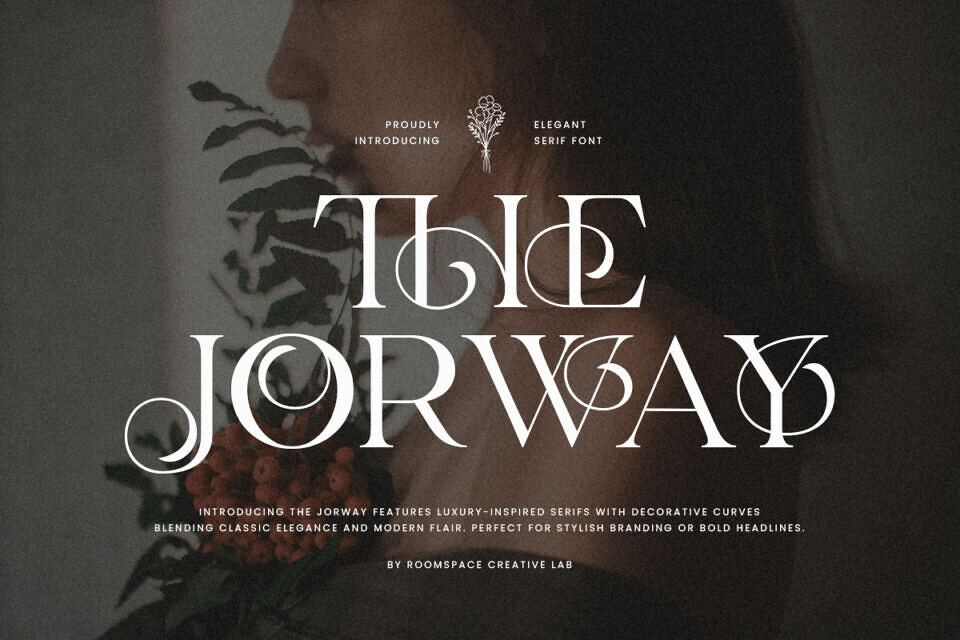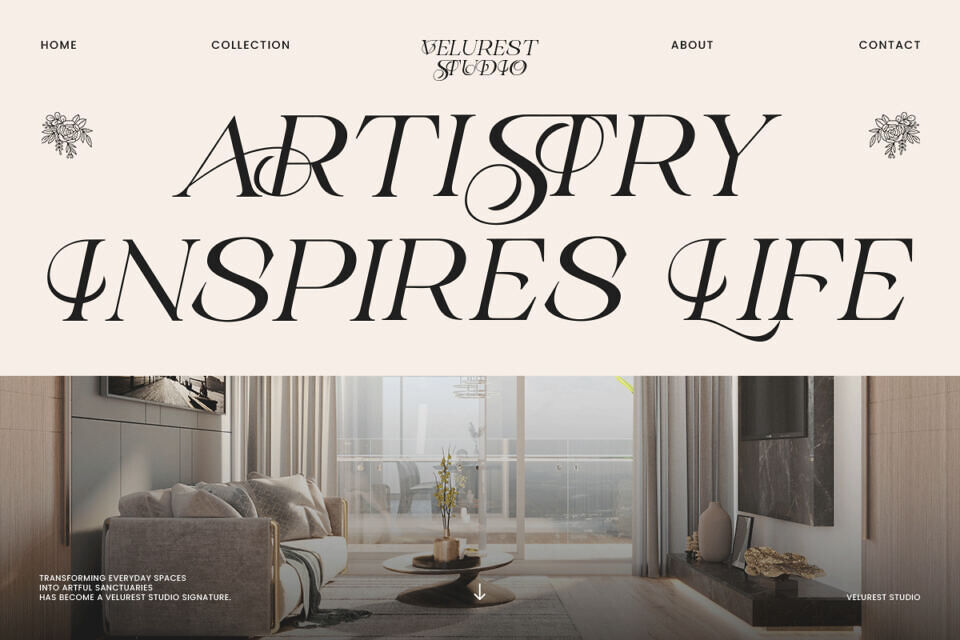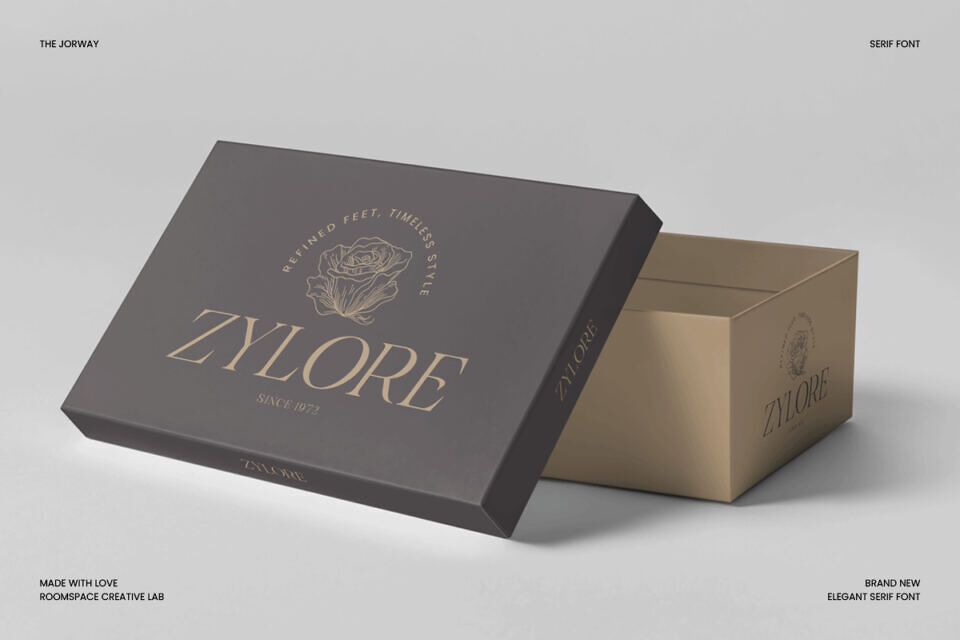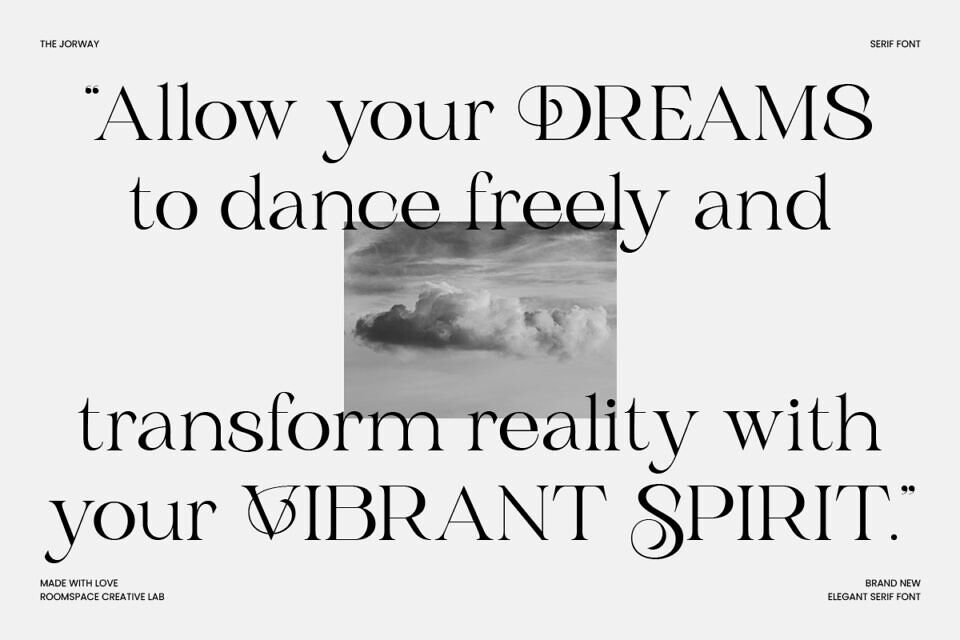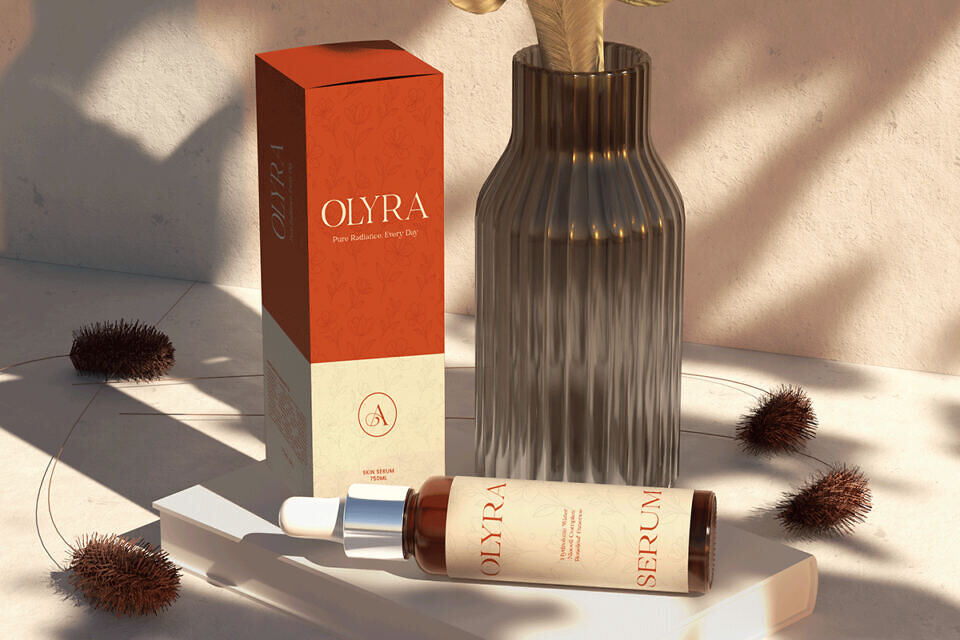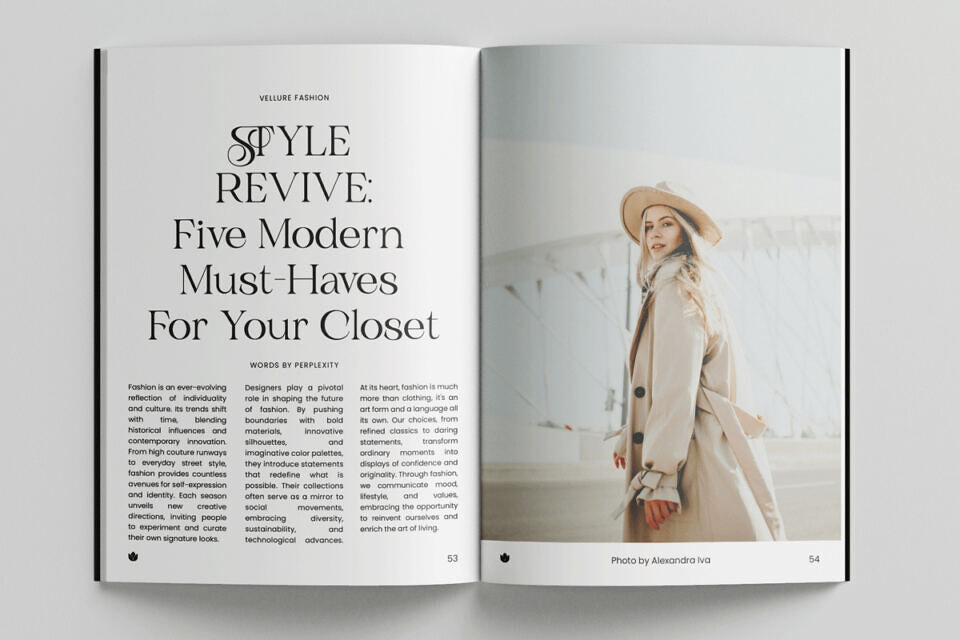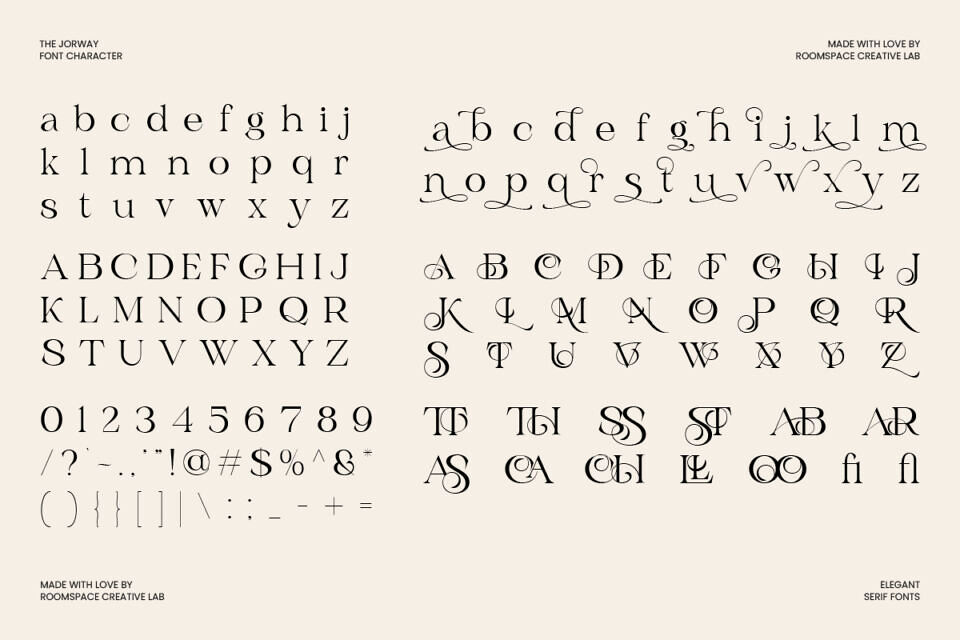
The Jorway Font
The Jorway is a stylish serif font crafted to bring charm and personality to every design. Its decorative strokes and balanced proportions make it versatile for both modern and timeless aesthetics. The Jorway combines artistic curves and refined letterforms to help your words stand out with clarity and confidence.
Each character in The Jorway is carefully shaped with distinctive curves, smooth contrast, and elegant ligatures that enhance visual flow. Designed with attention to detail, it delivers excellent readability and a distinct voic whether used for bold headlines or subtle body text. This serif is ideal for designers seeking a polished yet creative tone.